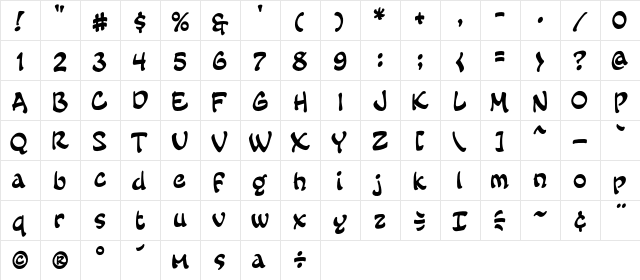
CCFairyTale Regular
| Foundry | Active Images |
| Designer | John Roshell |
Design Context for CCFairyTale Typeface
CCFairyTale is a composed and adaptable typeface that performs quietly and consistently across a wide range of design contexts.